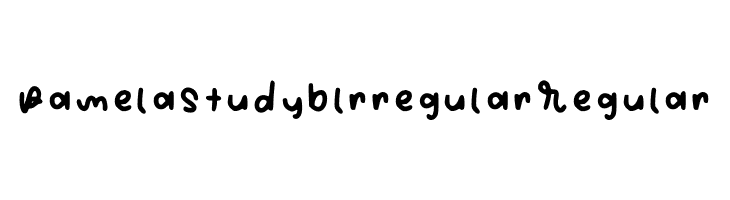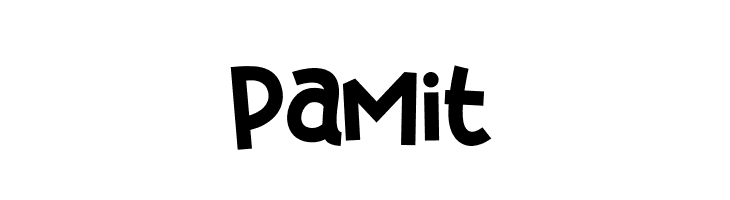
A playful, hand-drawn font with rounded, friendly characters.
A flowing, cursive script font with elegant, connected strokes.
A delicate and flowing script font with elegant, intricate curves.
An elegant, flowing script font with delicate, elongated strokes and ornate details.
A dynamic and elegant script font with smooth curves and a slight slant.
A playful, handwritten-style font with whimsical and artistic flair.
A lively and elegant script font with flowing, cursive letterforms.
A playful, handwritten-style font with smooth, fluid strokes and dynamic movement.
A bold, robust font with strong strokes and a modern yet timeless design.
A bold, robust font with strong strokes and elegant curves, ideal for headlines.
A fluid, elegant handwritten font with a natural, personal touch.
A dynamic, hand-drawn font with an expressive and artistic style.
An ornate Blackletter font with intricate, angular letterforms.
Elegant handwritten script font.
Casual handwritten script with playful, energetic strokes.
A bold, chaotic font with jagged, distressed edges and dynamic energy.
A dynamic, cursive script font with elegant, sweeping strokes.
A bold, expressive handwritten font with dynamic strokes.
A fluid, cursive-style font with a personal and artistic flair.
A bold, geometric font with a futuristic and edgy design.
A modern, elegant script font with flowing, cursive strokes and dramatic flourishes.
A playful, modern font with rounded edges and consistent stroke width.
Elegant cursive handwritten font.
An elegant, flowing script font with smooth, continuous strokes and graceful curves.
Playful handwritten font with a casual style.
An elegant script font with flowing, cursive letterforms and high contrast strokes.
An elegant script font with flowing, cursive letterforms and refined flourishes.
A bold, hand-drawn font with an expressive and artistic style.
A tall, narrow Art Deco font with geometric, elegant letterforms.